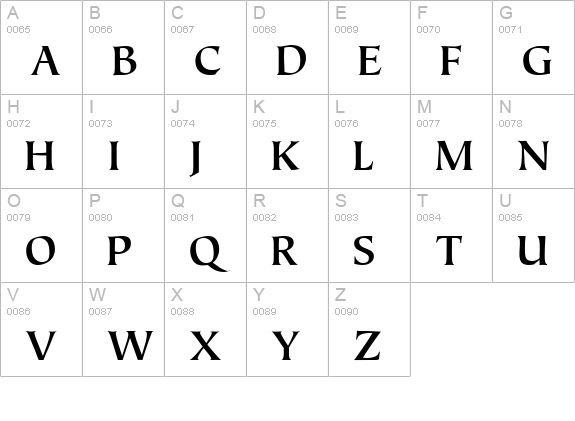
Tiepolo Bold is a strong, high-contrast variant in the Tiepolo typeface family \xE2\x80\x94 well suited to headlines, attention-grabbing titles, and strong calls-to-action.
Tiepolo Bold is a captivating and versatile font that exudes elegance and sophistication. Its bold and confident strokes command attention, making it perfect for headlines, titles, and branding projects. This timeless typeface boasts a harmonious balance between classic and modern design elements, making it suitable for a wide range of applications. With its clean lines and impeccable letterforms, Tiepolo Bold effortlessly captures the essence of refined typography. Each character is meticulously crafted, showcasing a perfect blend of strength and delicacy. This font possesses a unique charm that effortlessly elevates any design it is paired with. One of the most remarkable features of Tiepolo Bold is its versatility. It effortlessly adapts to various design styles, whether it be for traditional or contemporary projects. Its bold presence on the page grabs attention, while its subtle details add a touch of elegance and sophistication. Tiepolo Bold is the perfect choice for designers and creatives seeking a font that is both striking and refined. Its wide range of weights and styles provide endless possibilities for creating impactful and memorable designs. And the best part? Tiepolo Bold is available for free download at FontsMarket.com. Whether you're a professional designer or an aspiring artist, this font allows you to unleash your creativity without any restrictions. With Tiepolo Bold in your toolkit, you have the freedom to craft stunning designs that captivate and inspire.